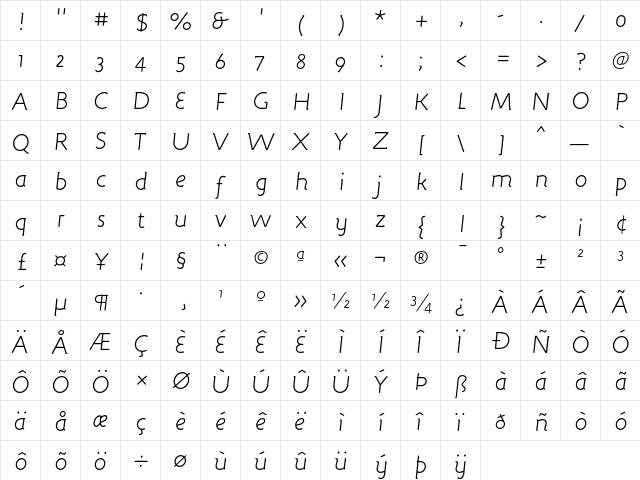
Engine LightItalic
Design Context for Engine Typeface
Engine offers clean, dependable letterforms without strong stylistic allegiance, making it a practical choice for designers who need flexibility. The slanted form adds forward momentum and visual energy. Its slender proportions lend an understated elegance to any composition.
Pro Tip: Use Engine for emphasis, pull quotes, and subheadings where its slanted energy can add rhythm to the layout.